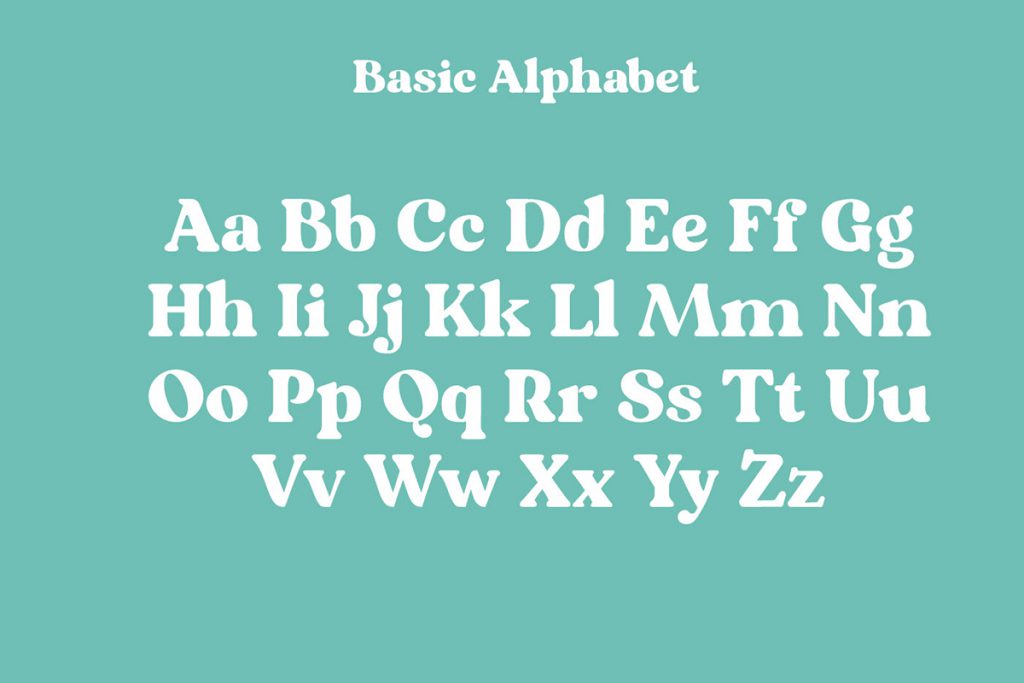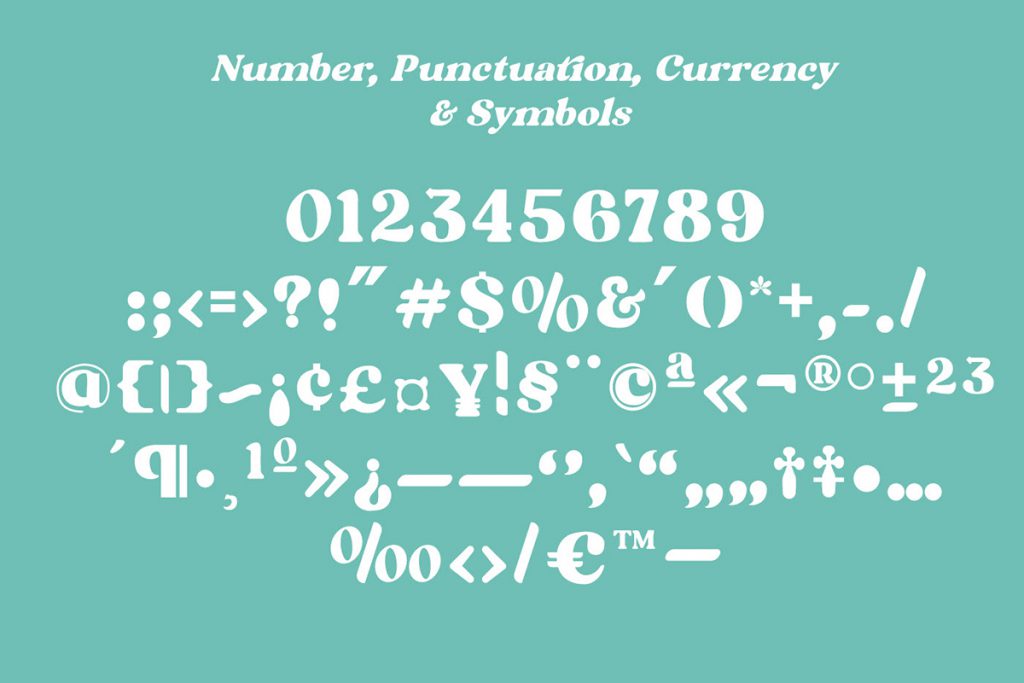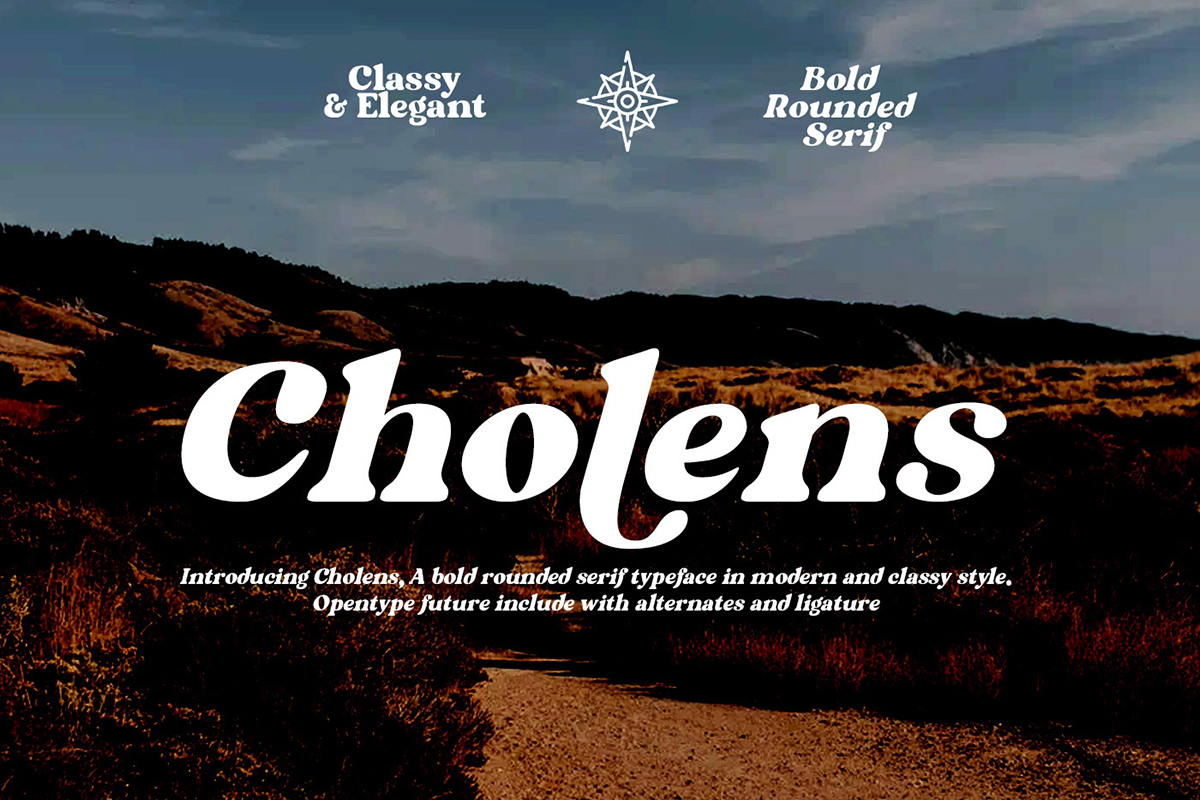
Cholens: Free Bold Serif Font
Cholens free bold serif font is a bold rounded serif typeface in modern and classy style. However, today you can get Cholens Italic and get to try it to your latest design! As you can see, this font is ideal for various design purposes from display to prints. Hence, it will work great as headlines, headers, logos, labels, packaging, postcards, presentations, magazines, invitations, etc.